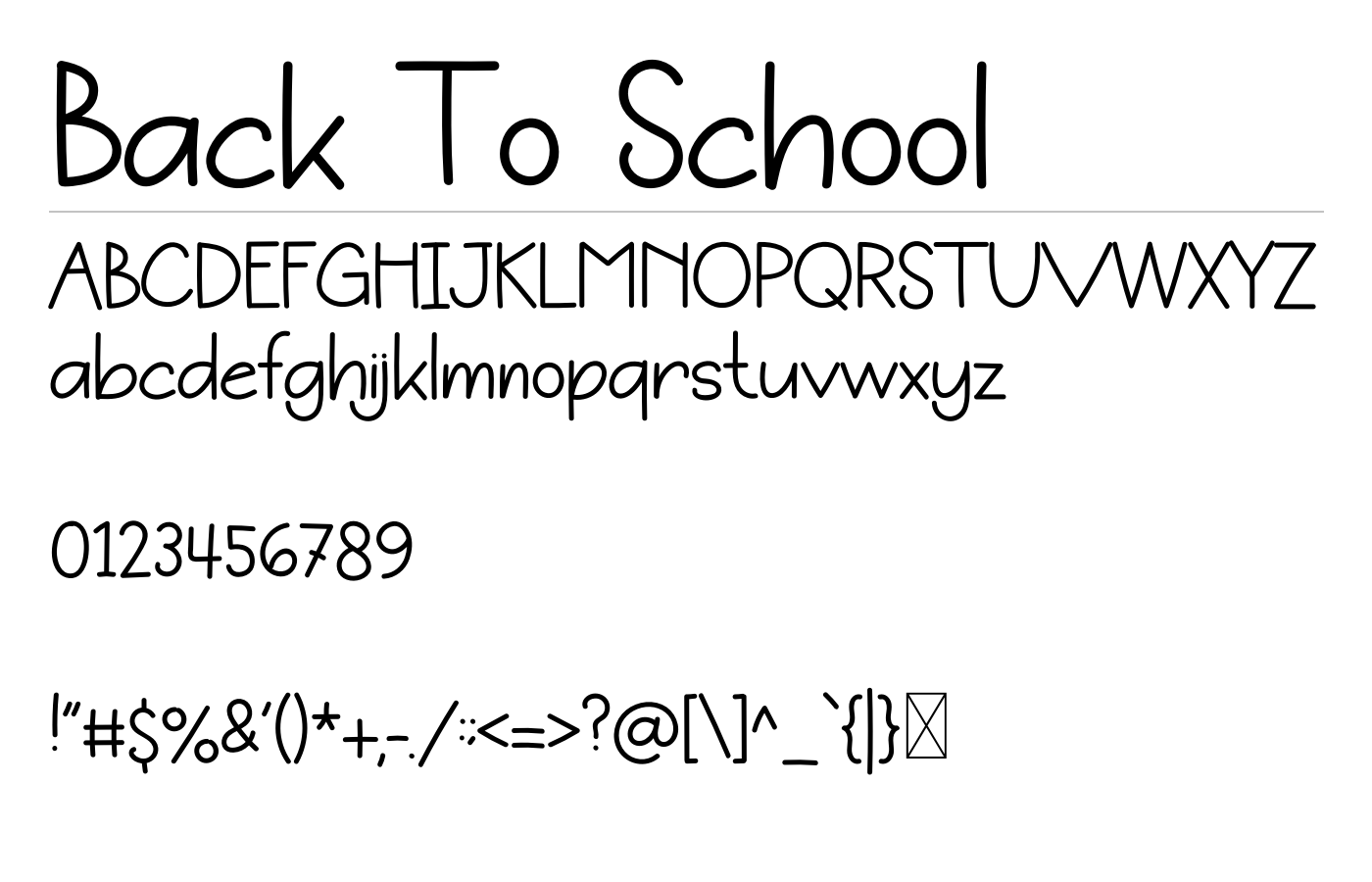
Back To School is a playful sans-serif font that mimics casual handwriting with its irregular, rounded strokes and friendly character shapes. Its light weight and open letter spacing give it an airy, approachable feel, making it perfect for projects that aim for a fun, informal, and youthful vibe. This font works well in educational materials, children’s books, and any design seeking a warm, personal touch without sacrificing readability.
Back To School Font
About Back To School Font
| Font family | Back To School Font |